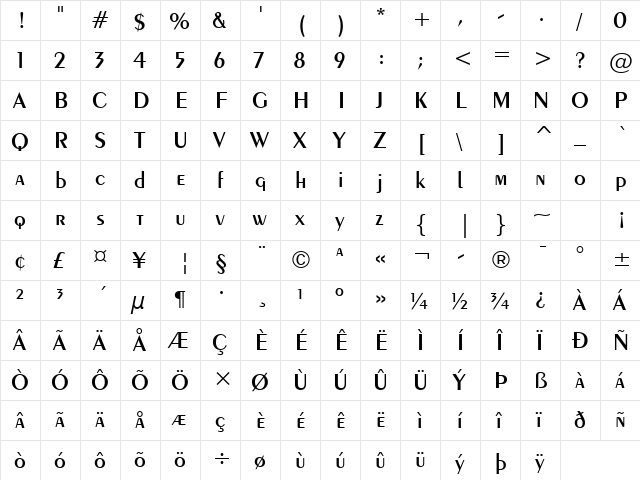
Exotc350 DmBd BT Demi-Bold
Design Context for Exotc350 DmBd BT Typeface
Exotc350 DmBd BT is a composed and adaptable typeface that performs quietly and consistently across a wide range of design contexts. The heavy weight commands attention and anchors typographic hierarchies.
Pro Tip: Use Exotc350 DmBd BT in both headline and body roles to test its range before committing to a single application.